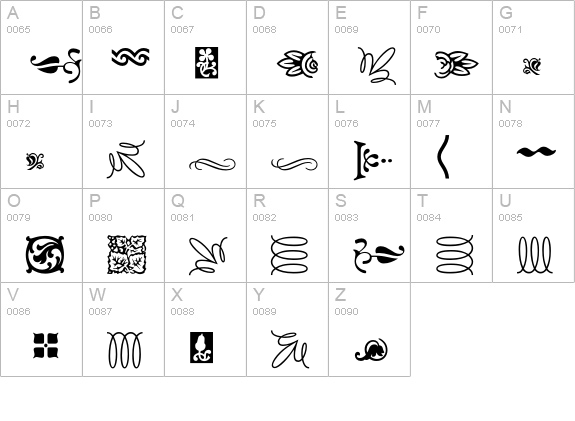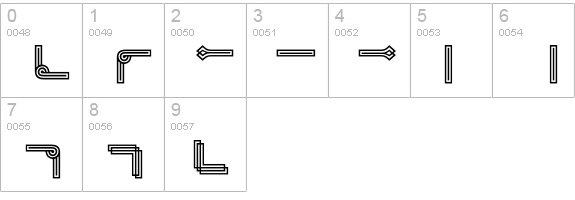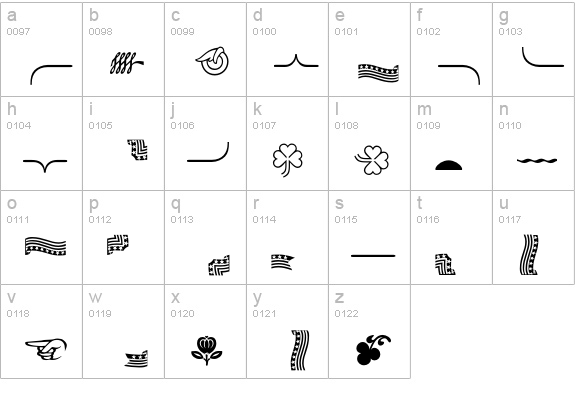
BordersOrnamentsP06 Font Details
BordersOrnamentsP06 font is a beautifully crafted typeface that adds a touch of elegance and sophistication to any design project. This decorative font features ornate borders and intricate patterns that are perfect for creating stunning invitations, posters, and other creative projects. What sets BordersOrnamentsP06 font apart is that it is available for free download at FontsMarket.com. This means that you can easily access this exquisite typeface and incorporate its unique charm into your designs without any cost. Whether you are working on a wedding invitation, a branding project, or a social media graphic, BordersOrnamentsP06 font is sure to elevate your work with its timeless style and intricate details. With its versatile use and stunning design elements, BordersOrnamentsP06 font is a must-have addition to any designer's toolkit. Download it for free today and unleash your creativity with this exquisite typeface.